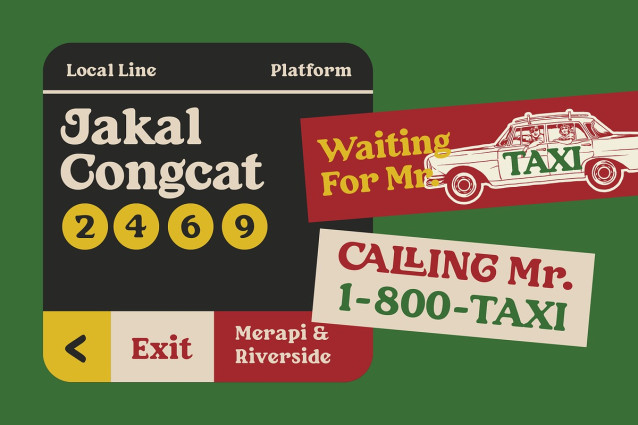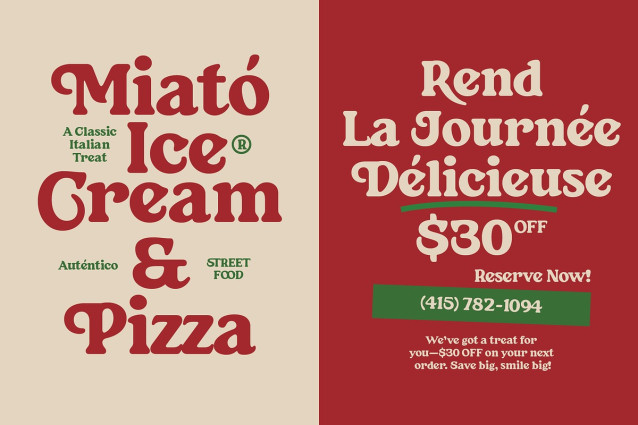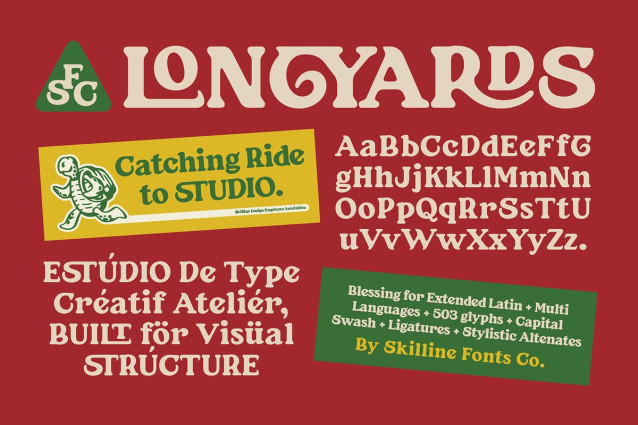
Longyards Font
Longyards Font is a vintage rounded serif display font inspired by classic European signage, Italian deli typography, and retro editorial lettering. Designed with soft curves, bold structures, and nostalgic proportions, it delivers a warm yet confident visual presence.
Its distinctive letterforms balance vintage charm with modern clarity, making Longyards perfect for branding, packaging, food labels, posters, signage, and lifestyle merchandise. With multilingual support, stylistic alternates, ligatures, and swash details, this font brings expressive character and professional versatility to any display project.